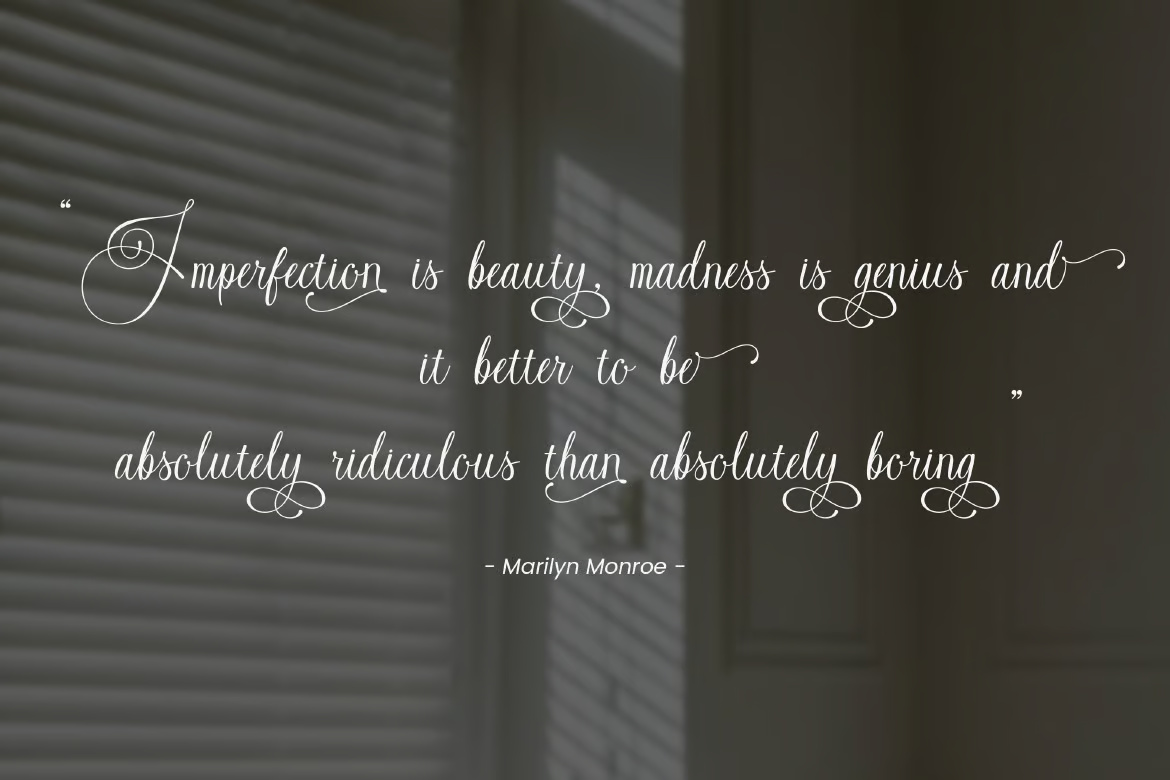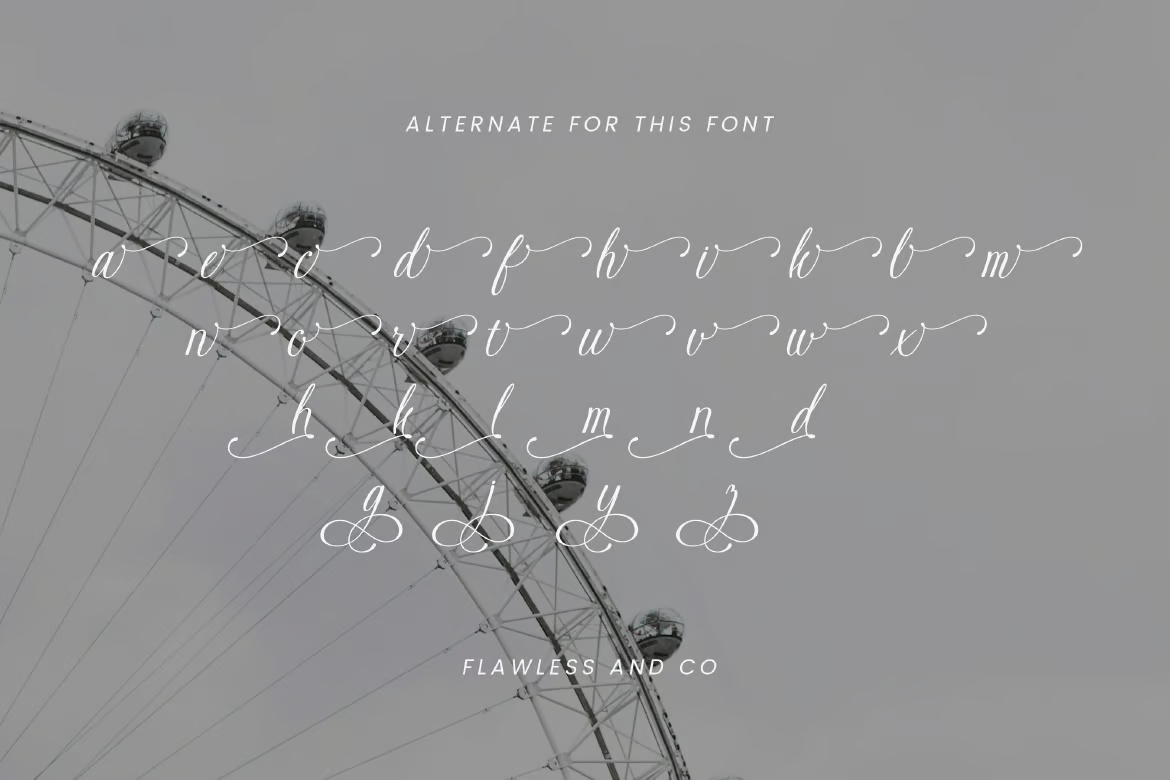
Introducing Patrice Seraya, a stunningly crafted script calligraphy font that exudes elegance and sophistication. With its flowing curves, delicate flourishes, and graceful letterforms, Patrice Seraya adds a touch of luxury and refinement to any design. Perfect for wedding invitations, logos, branding materials, event stationery, social media posts, greeting cards, and more, this font will elevate your creations with its timeless beauty. Whether you’re aiming for a high-end look or a soft, romantic feel, Patrice Seraya is the ideal choice.
Patrice Seraya Script Logo Calligraphy Font